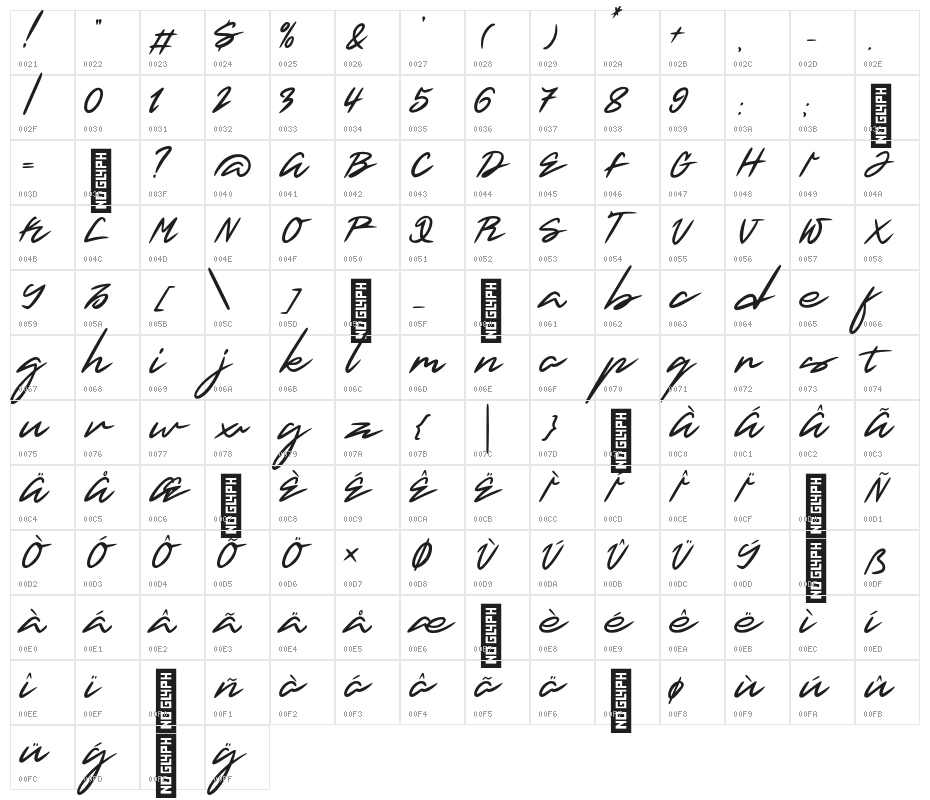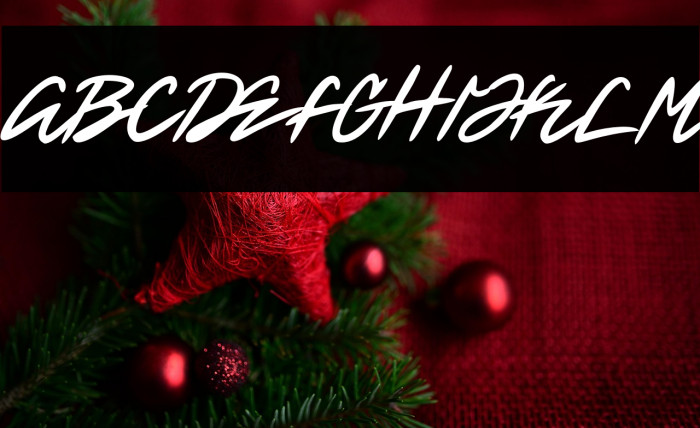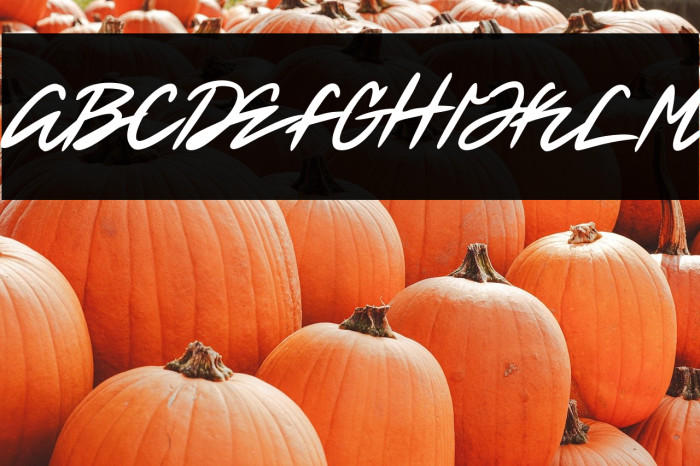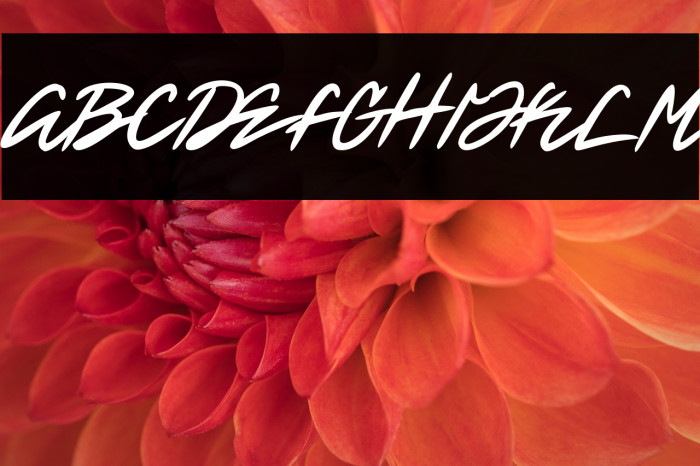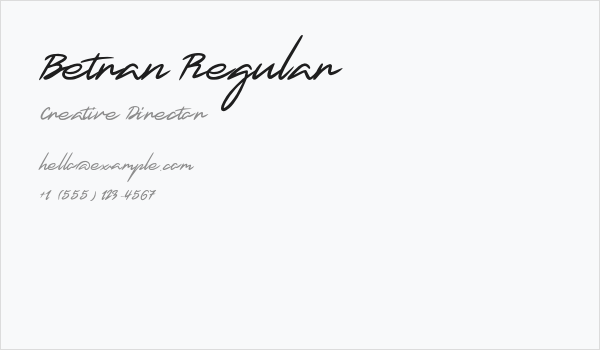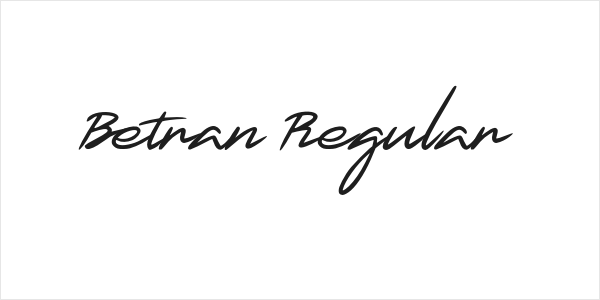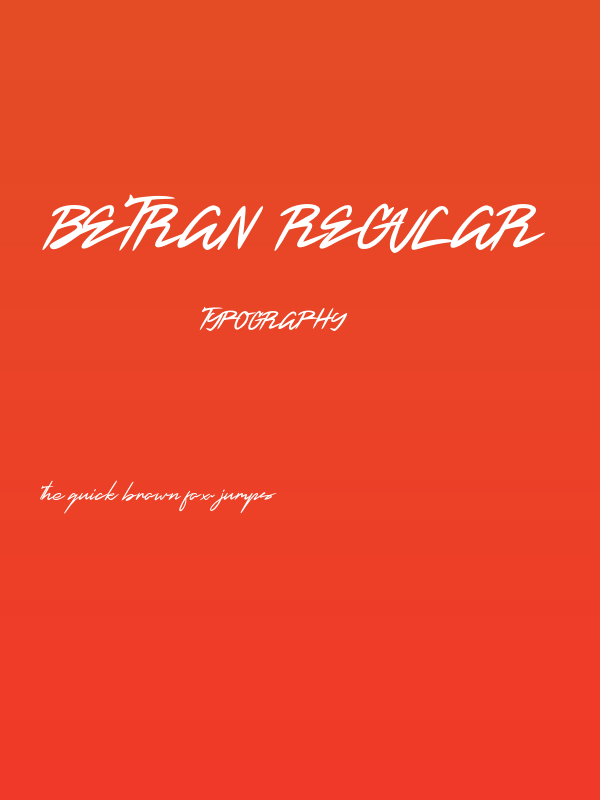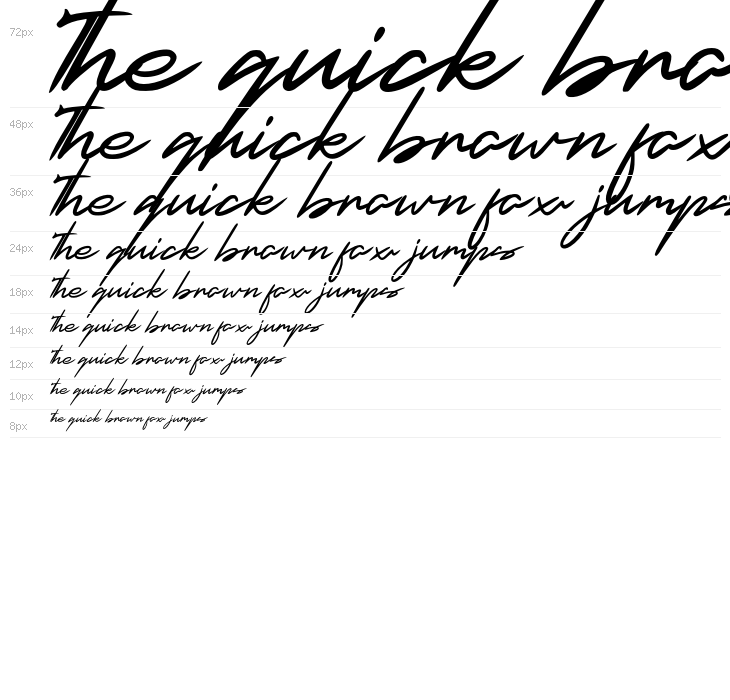
Betran Regular Font
Betran Regular Description
This font exudes a dynamic and energetic style with its bold, cursive script. The characters are fluid and connected, creating a sense of movement and flow. The uppercase letters are particularly striking, with dramatic flourishes and a sense of urgency. The lowercase letters maintain a consistent style, complementing the uppercase with their elegant curves. Numbers and special characters are equally expressive, adding to the font's overall personality. This script is ideal for projects that require a personal touch or a sense of sophistication and flair.
| Proposed Projects | Ideal for invitations, branding, logos, and creative projects requiring a personal touch. |